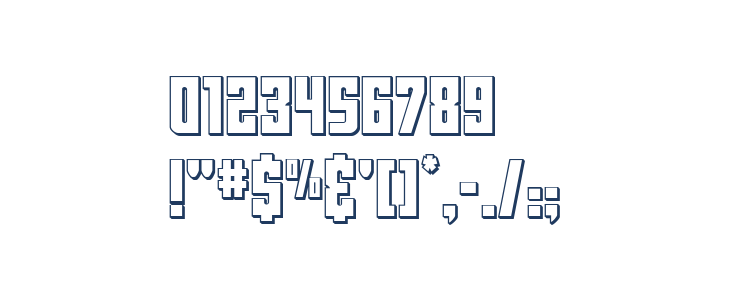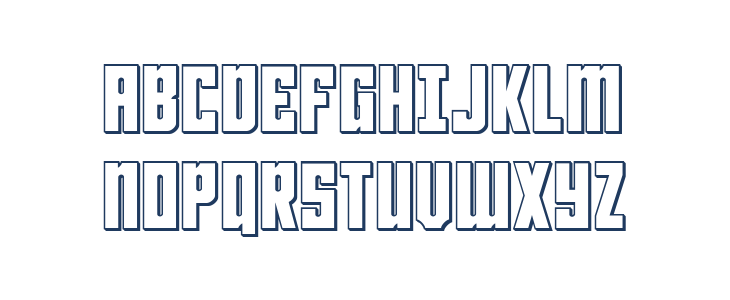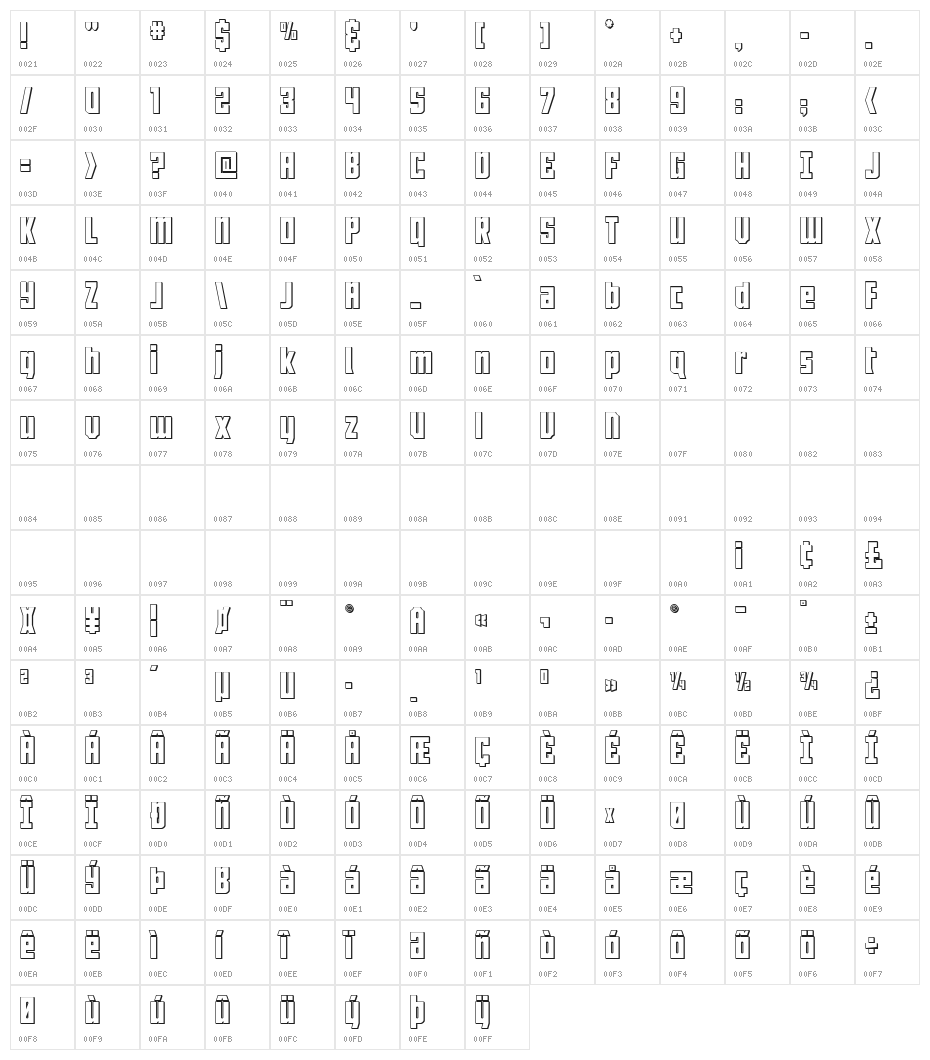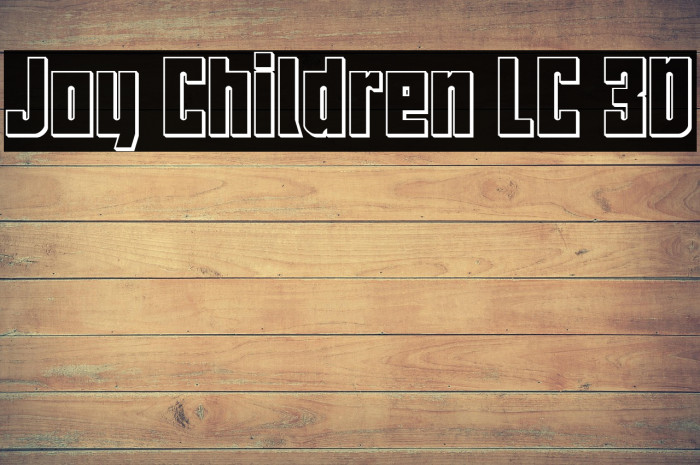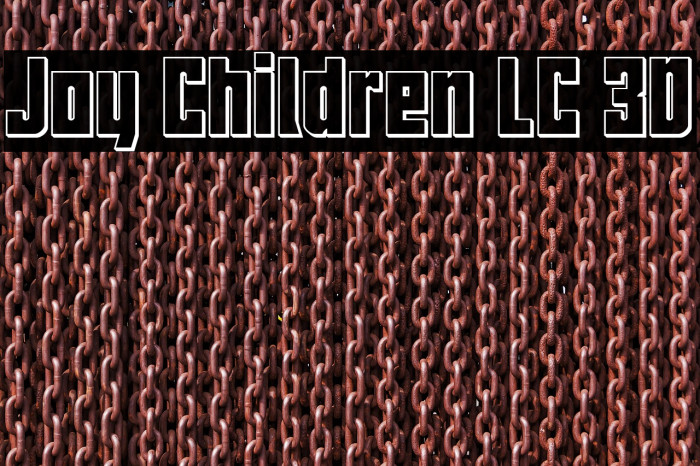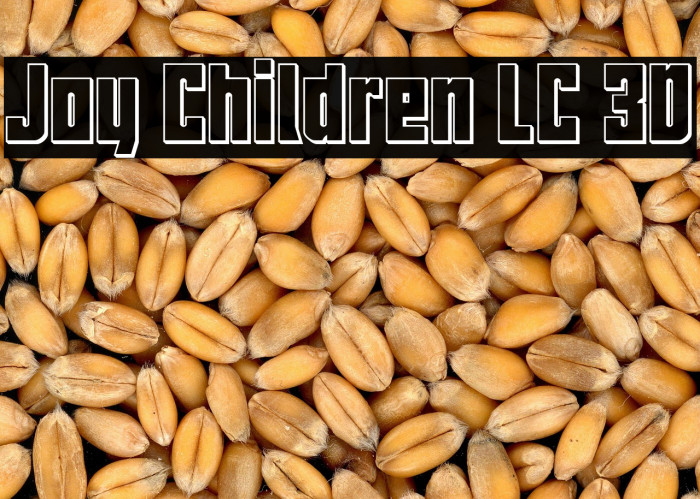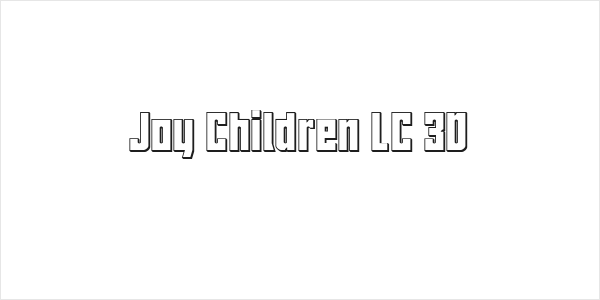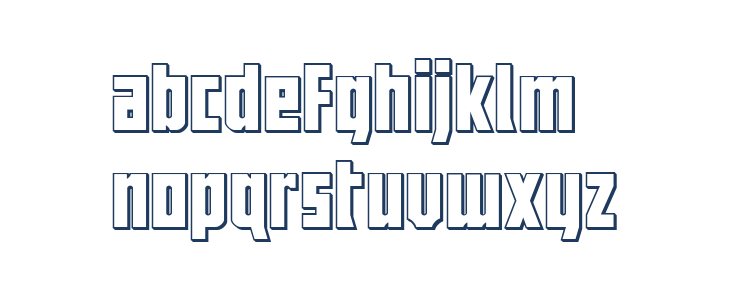
Joy Children LC 3D Font
Joy Children LC 3D Description
Bold, outlined, block-style font with a geometric and modern appearance.
| Overall Style | Modern, Geometric |
| Use Case | Headlines, Posters, Logos |